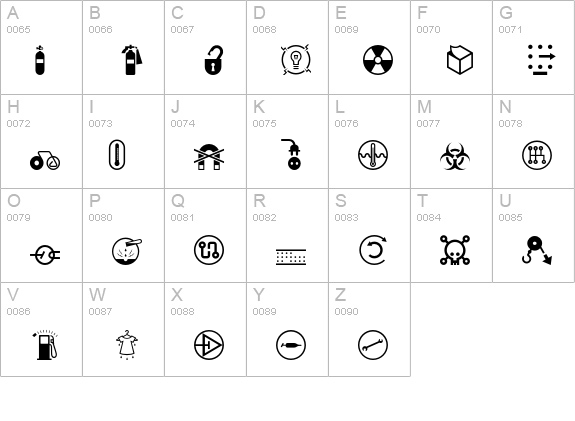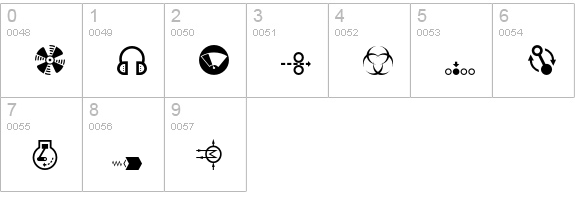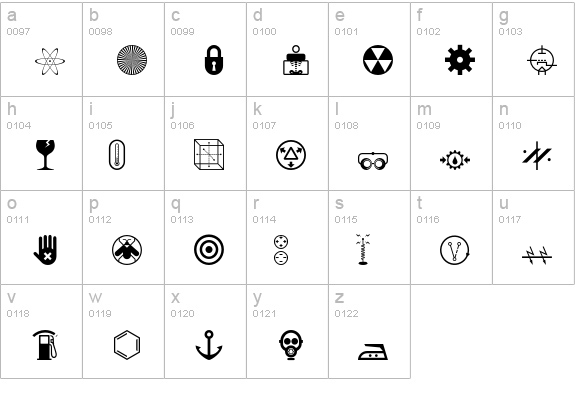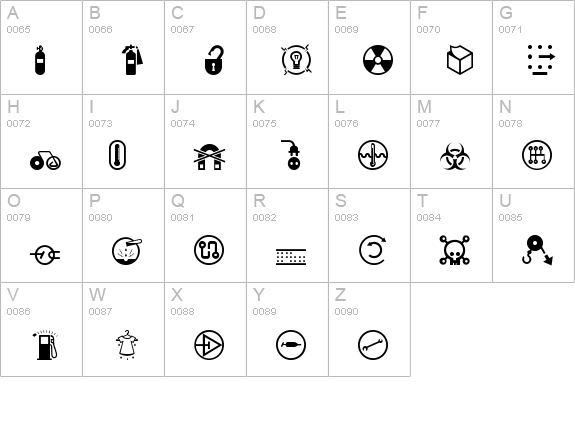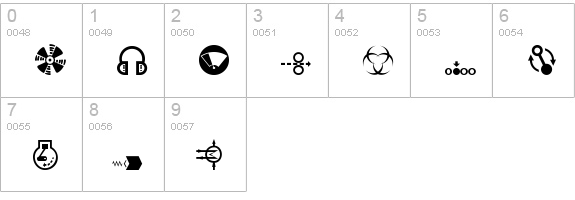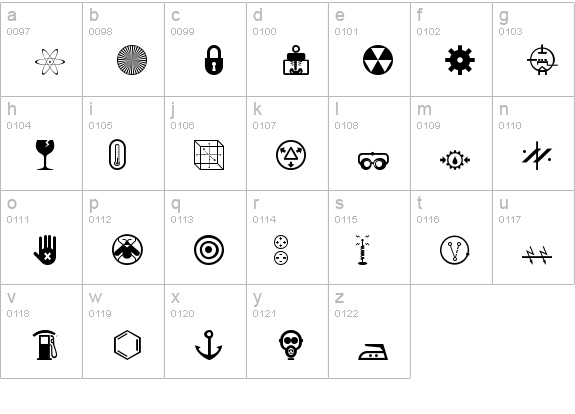
Nucleus-One is a sleek and modern font that exudes sophistication and elegance. With its clean lines and sharp edges, this font is perfect for a wide range of design projects, from branding to editorial design. The versatility of Nucleus-One makes it a must-have for any designer looking to add a touch of class to their work. The best part? Nucleus-One is completely free to download at FontsMarket.com, making it accessible to designers of all levels. Whether you're a seasoned professional or just starting out, this font is sure to elevate your designs and make a lasting impression. Don't miss out on the opportunity to enhance your projects with the timeless beauty of Nucleus-One. Download it now and let your creativity shine!